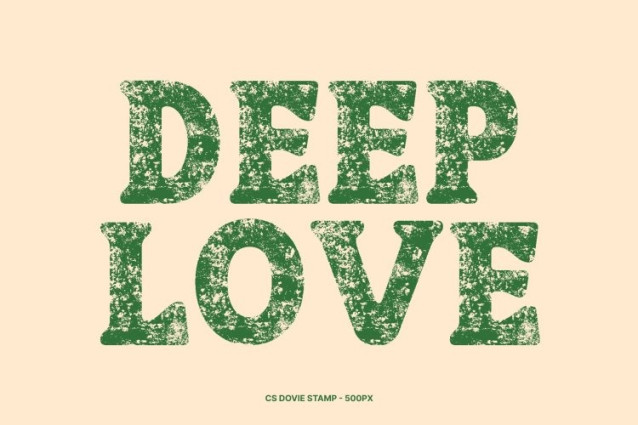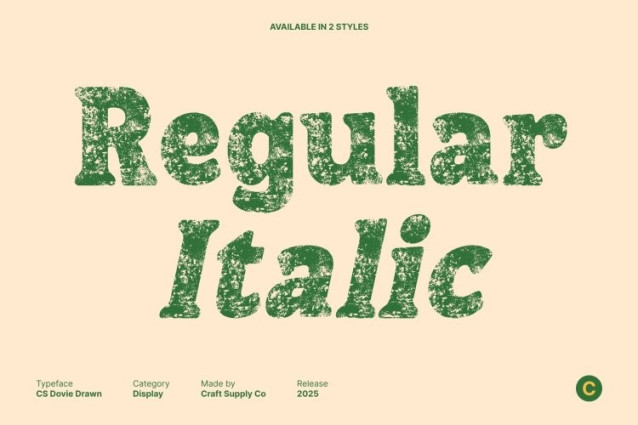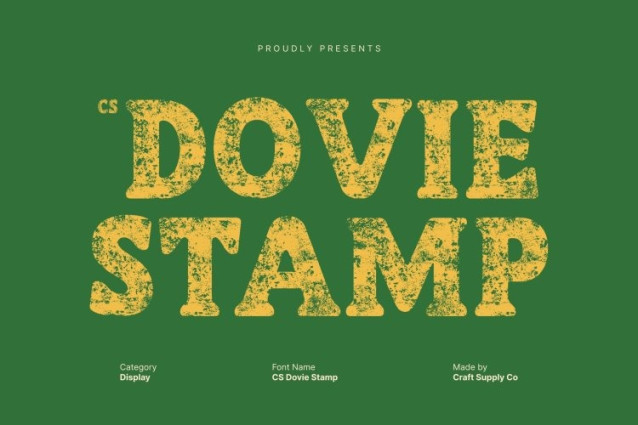
CS Dovie Stamp Font
CS Dovie Stamp Font Delivers boldness at its finest. Designed with heavy weight and commanding structure, this display font instantly captures attention. Its strong presence makes it perfect for posters, headlines, and branding that needs to stand tall and speak loudly. Every character exudes confidence, ensuring your message leaves a lasting impact.
Vintage Appeal Through Stamp Texture
Enhanced with a textured stamp effect, introduces a nostalgic, vintage charm to its bold forms. The distressed detailing adds depth and personality, giving the font a rugged, handcrafted look that enriches its visual appeal. This subtle imperfection brings warmth and authenticity to otherwise powerful typography.
Perfect for Posters, Headlines, and Strong Branding
With its striking silhouette and tactile texture, excels in display settings where clarity and impact are essential. It transforms titles into bold statements and gives branding a fearless, memorable identity. Whether used in advertising, packaging, or editorial layouts, it ensures your design speaks with authority.
Versatile for Modern and Retro-Inspired Concepts
This font adapts seamlessly across various design styles. Its bold weight fits contemporary layouts, while the stamped texture offers a classic, aged feel creating a balanced fusion of modern strength and retro character. Ideal for designers seeking a font that combines impact, texture, and timeless personality.